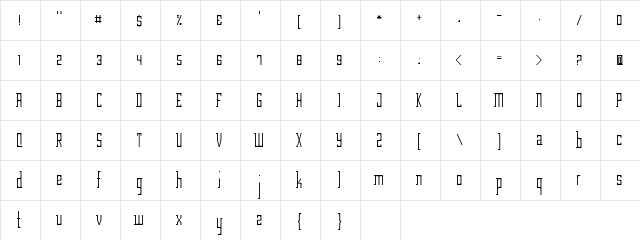
Garden Regular Font Preview
Garden Regular
Garden Regular Font Details
Design Context for Garden Typeface
Garden takes a measured approach to typography — its balanced proportions and neutral character make it a reliable workhorse for both digital and print work.